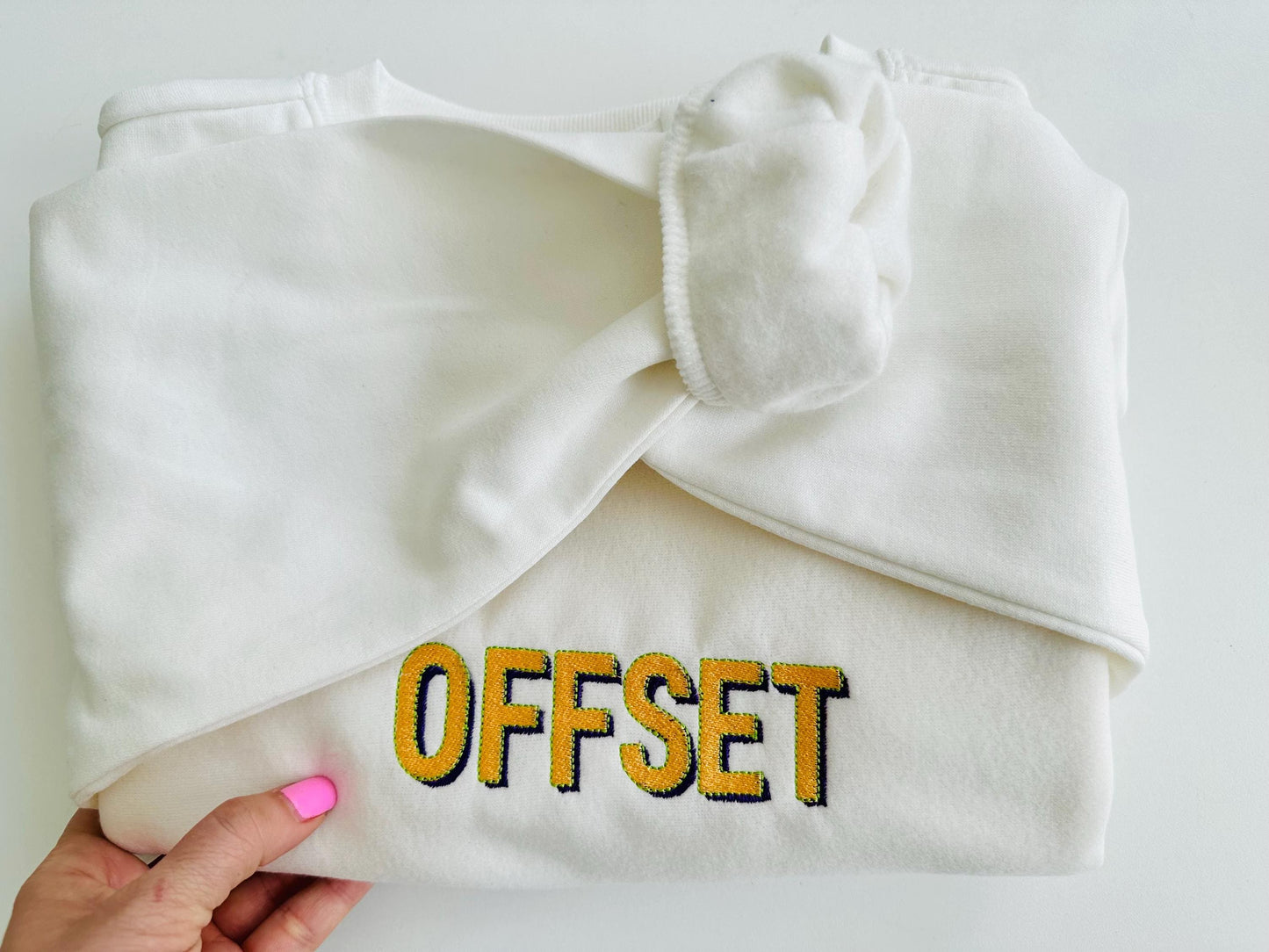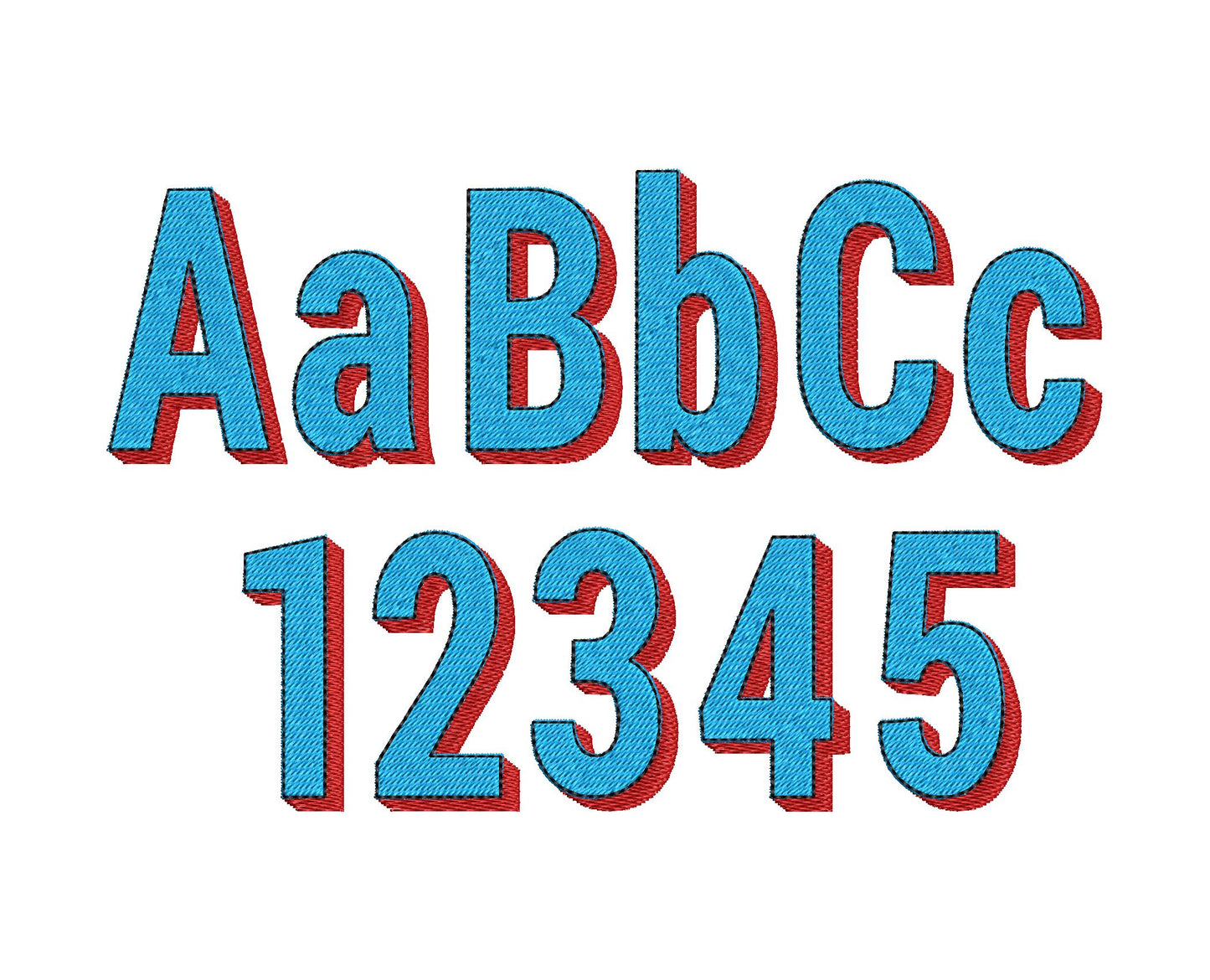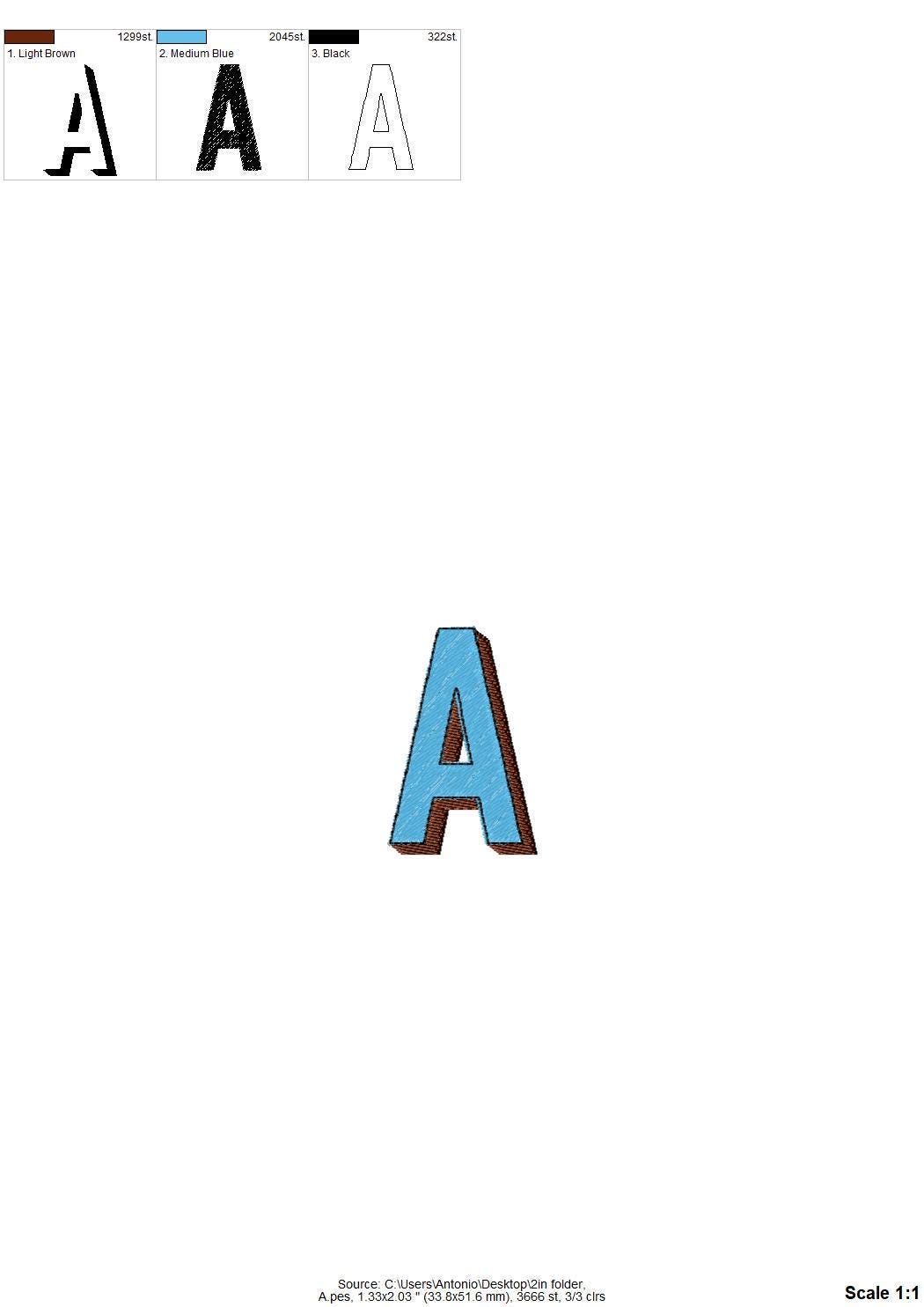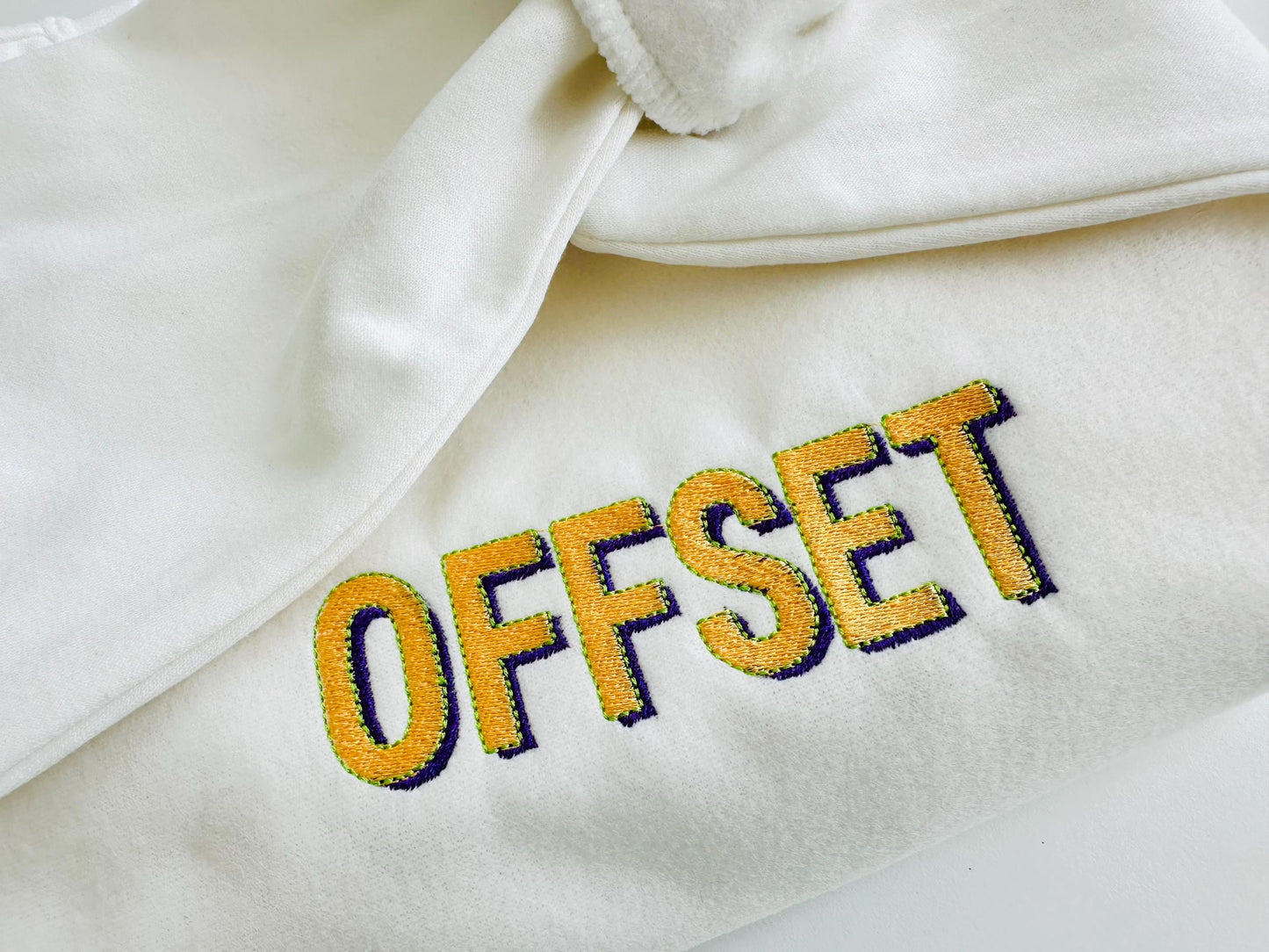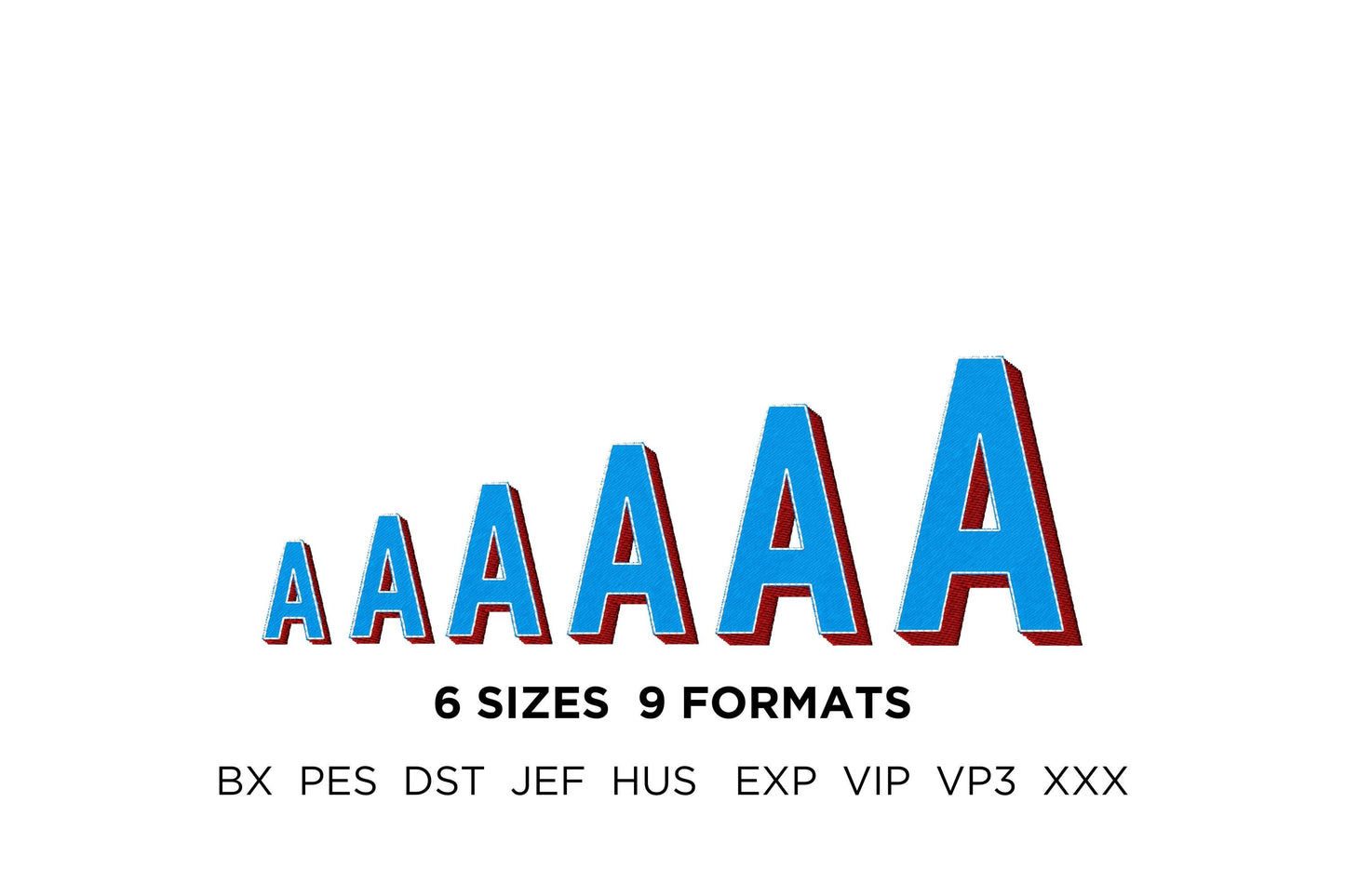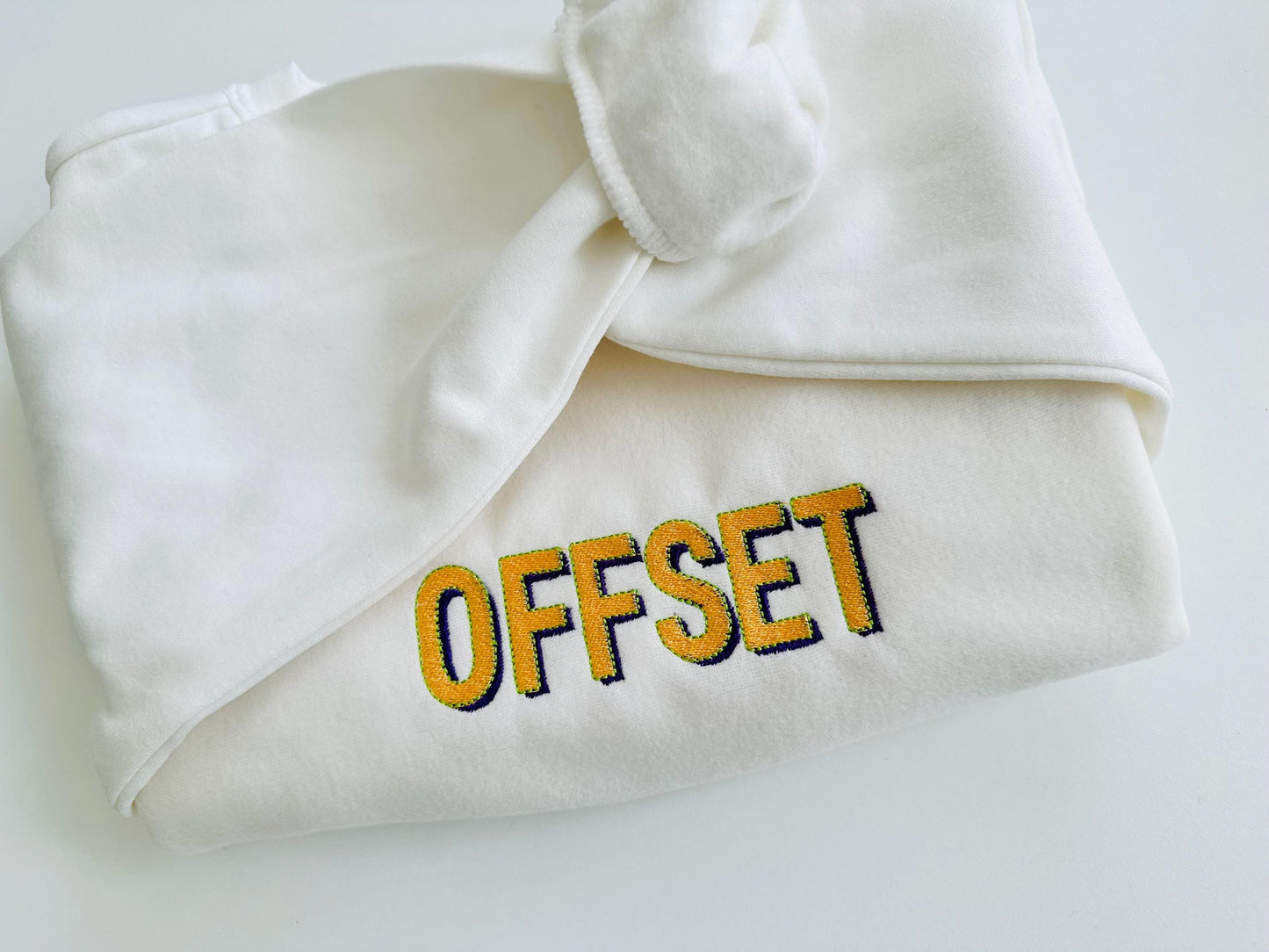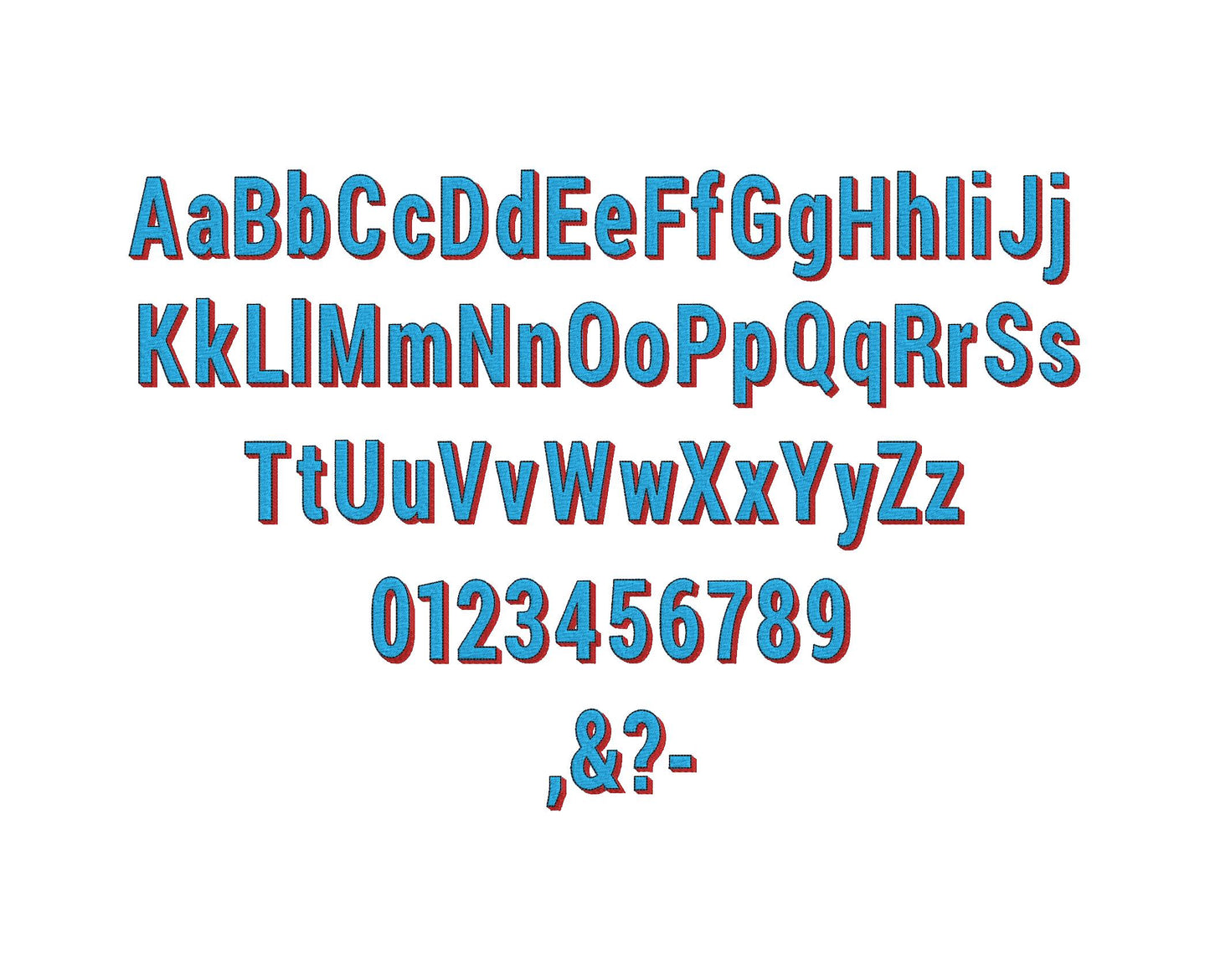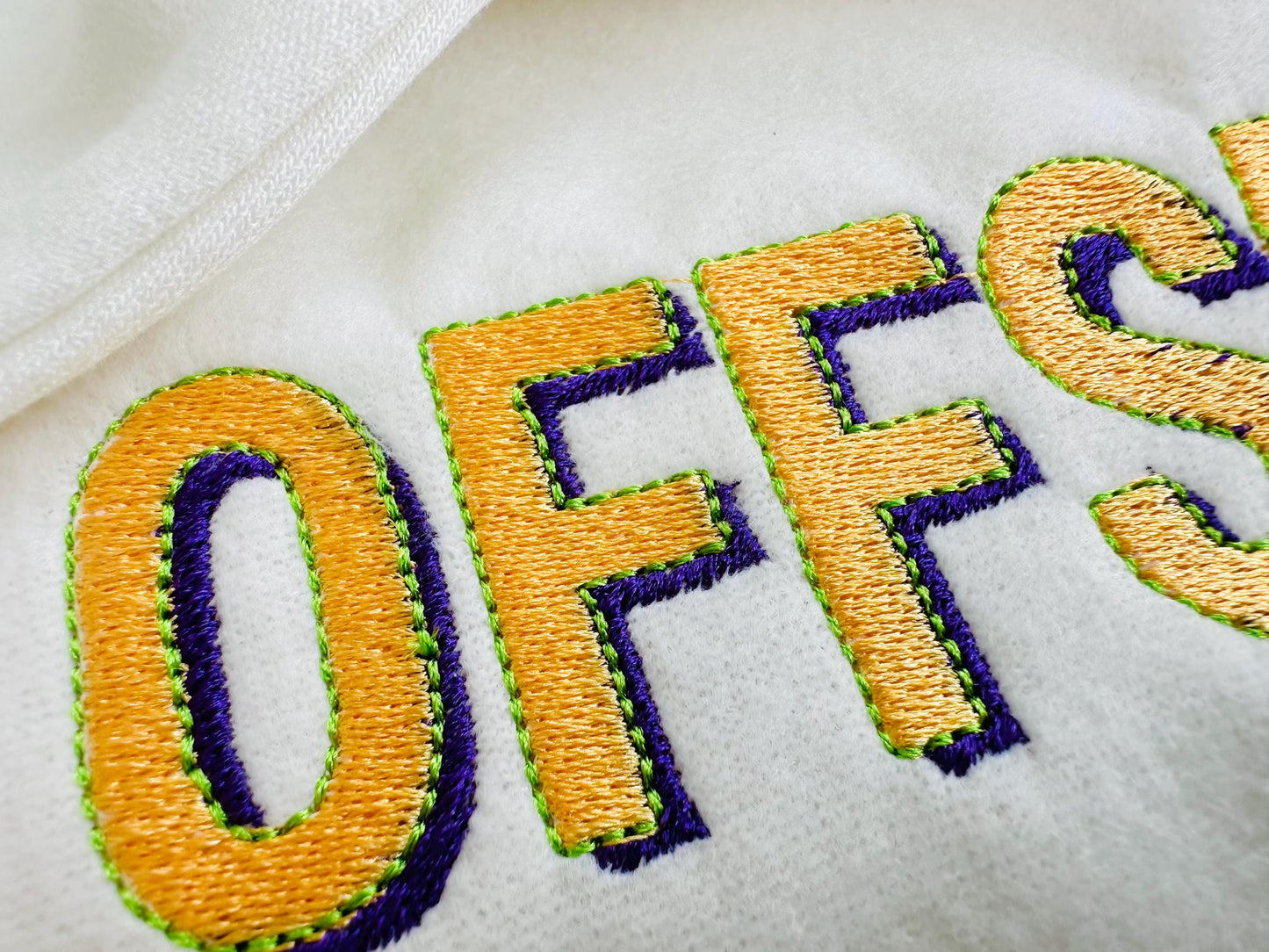
Or click to open the linkA bold three-color block font with a shadow, in fill stitch. Great for sport shirts, kids' names, bags and monograms.
Uppercase and lowercase letters, numbers 0 to 9 and punctuation. Six sizes: 1, 1.3, 1.6, 2, 2.4 and 3 inches. Fill stitch letters with a shadow and an outline.